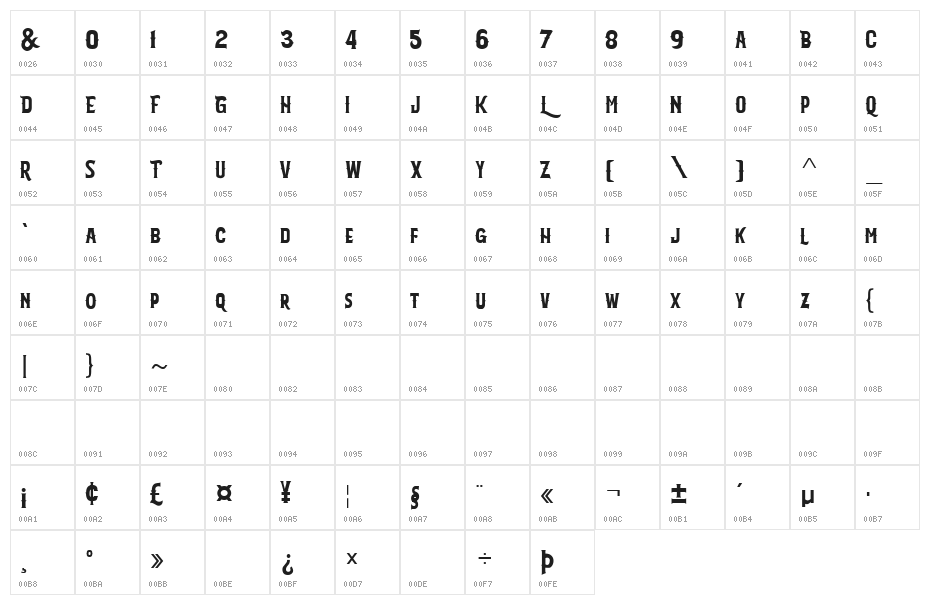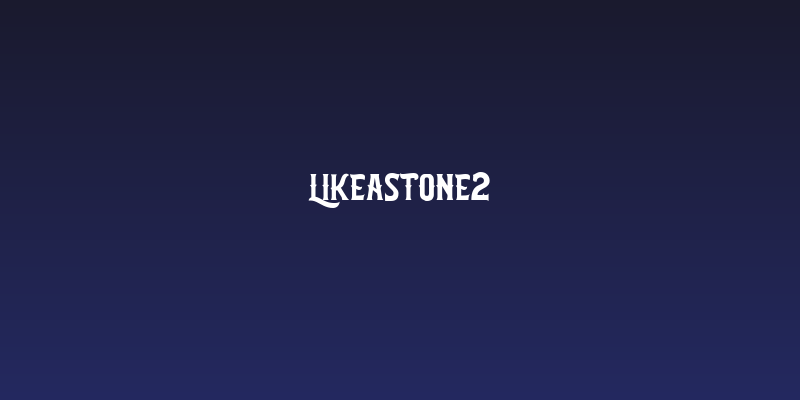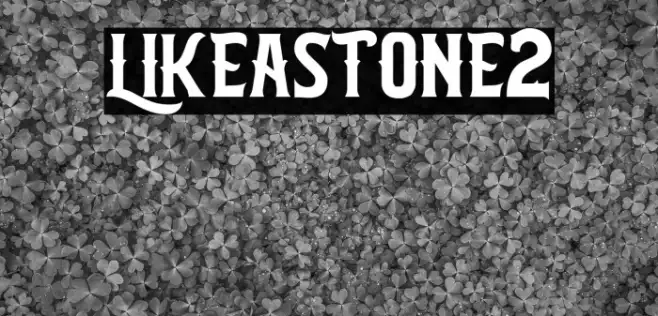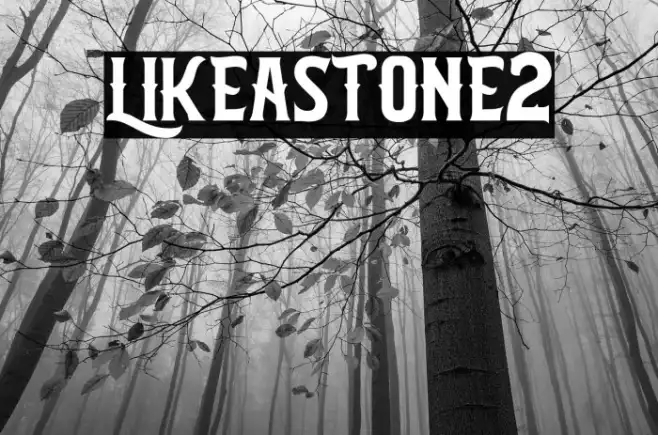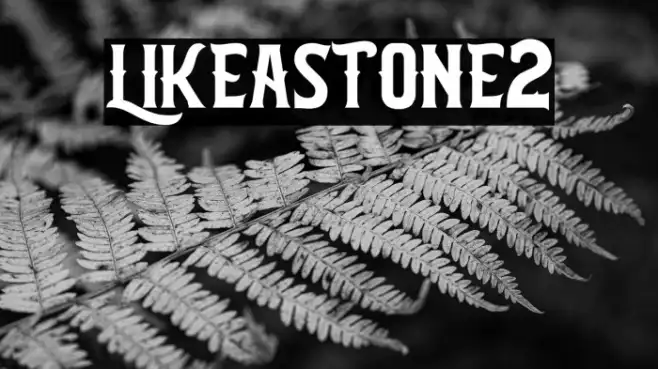
LIKEASTONE2 Font
LIKEASTONE2 Description
This font features a bold and dynamic style with a strong presence. The uppercase letters are characterized by sharp, angular serifs and a slightly condensed form, giving them a commanding appearance. The lowercase letters maintain the same boldness, with a consistent stroke width that enhances readability. The numbers are equally bold, ensuring they stand out in any context. The ampersand is uniquely styled, adding a touch of flair to the overall design. This font's high contrast between thick and thin strokes adds to its striking visual impact.
| Proposed Projects | Ideal for use in headlines, posters, branding, and any project requiring a strong visual impact. |